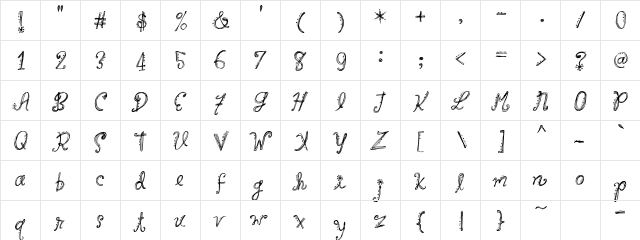
CK Bohemian Regular
Design Context for CK Bohemian Typeface
CK Bohemian is a composed and adaptable typeface that performs quietly and consistently across a wide range of design contexts.